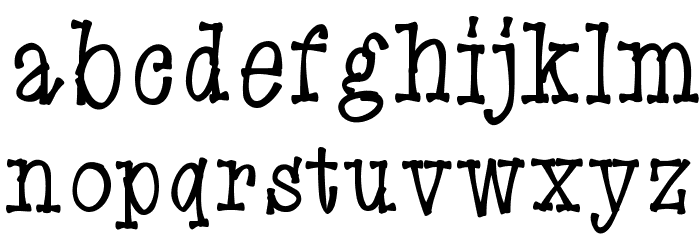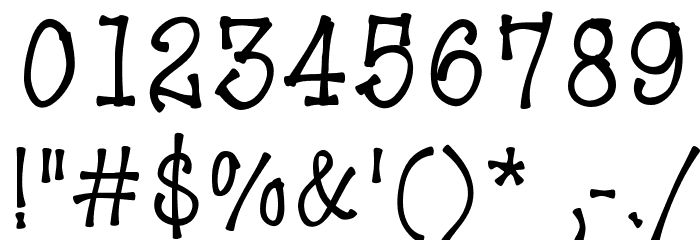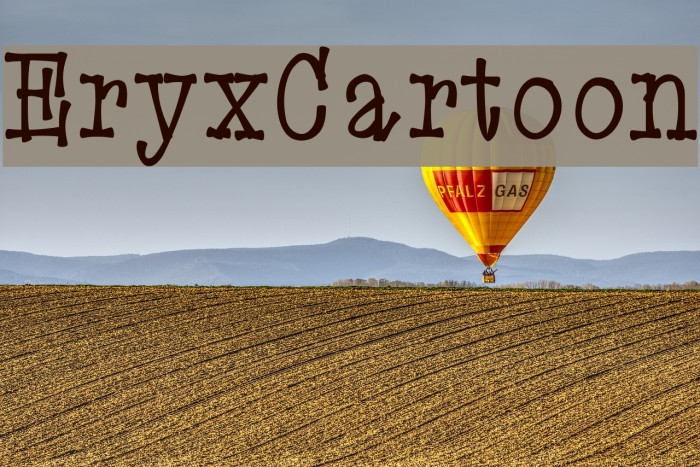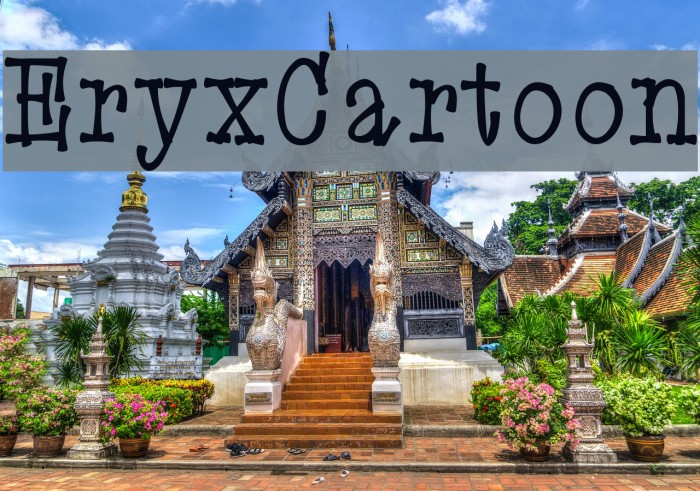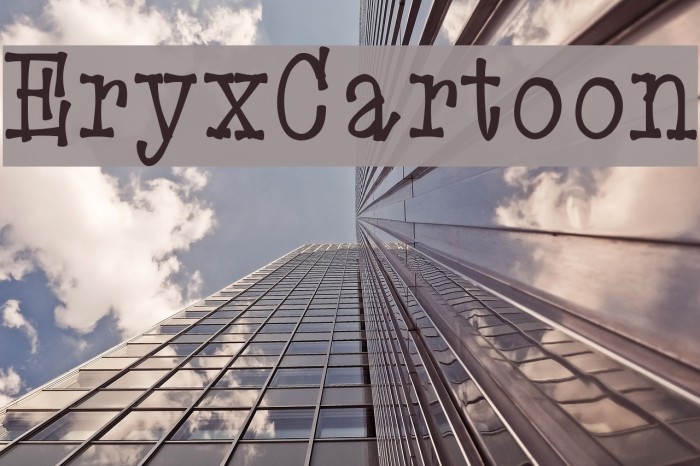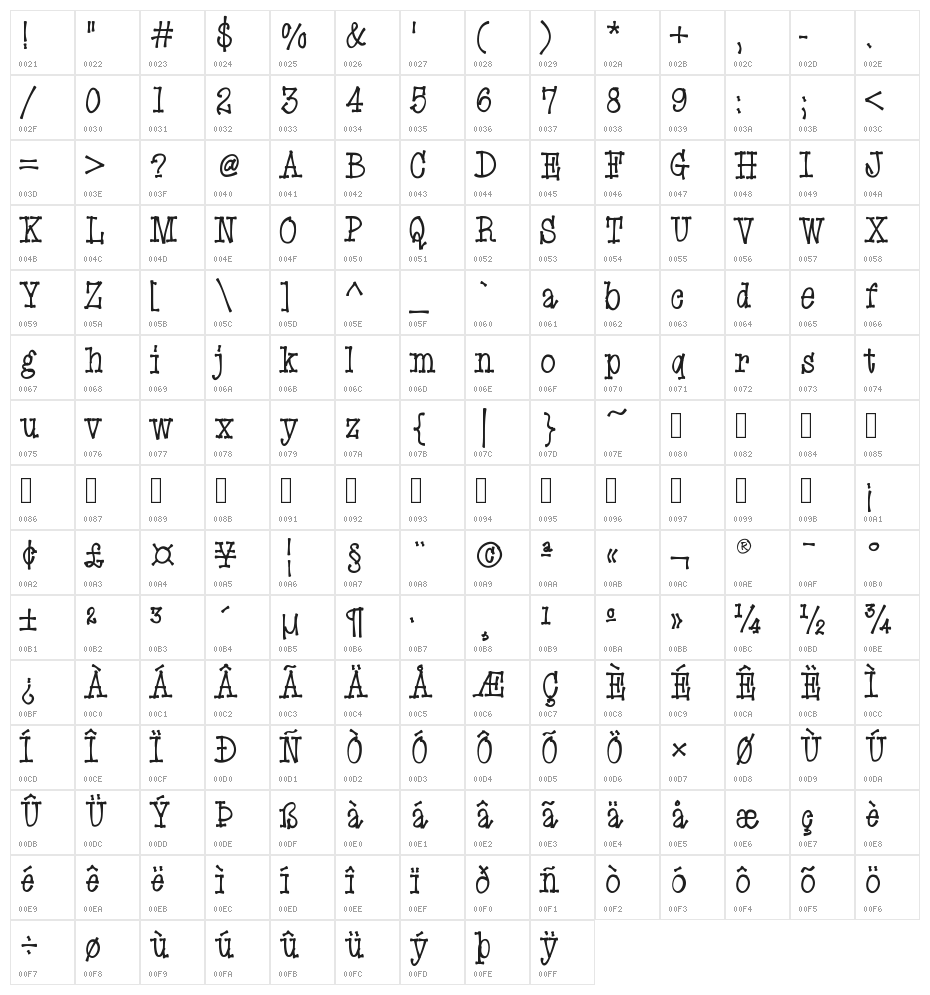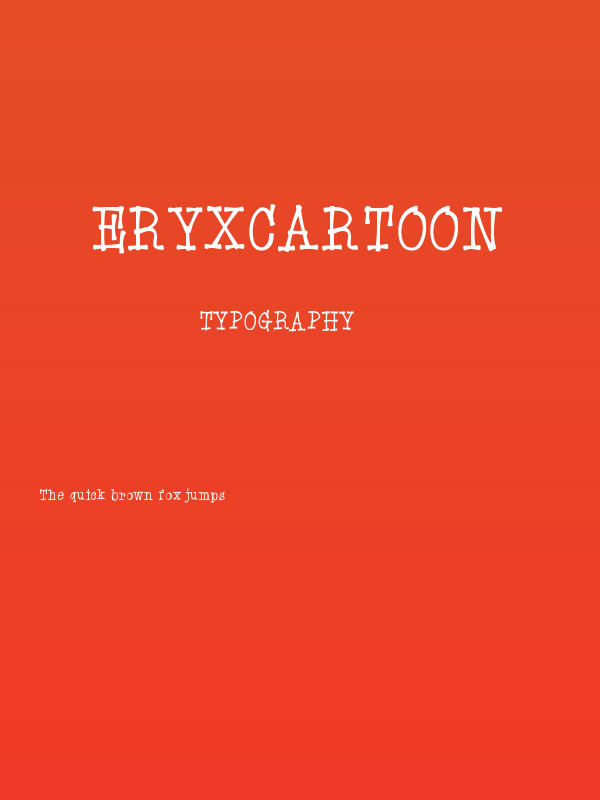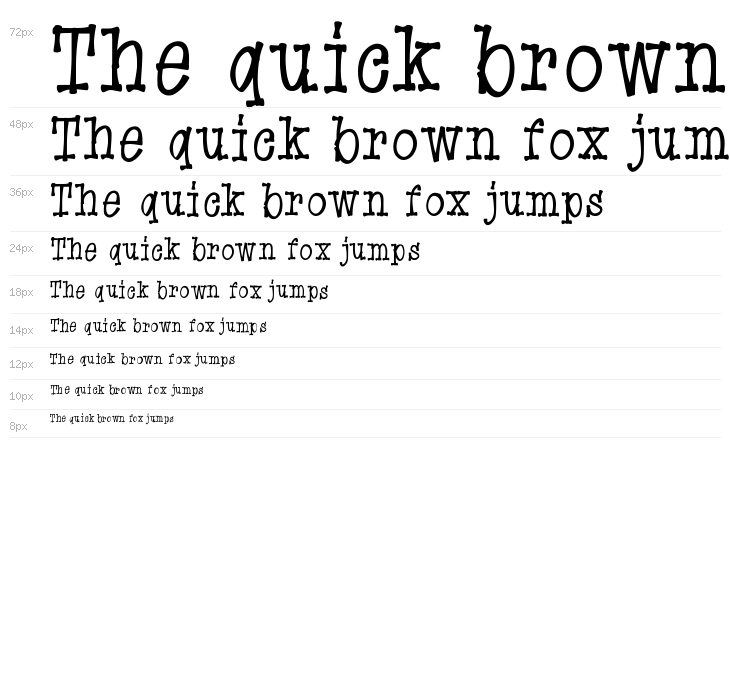
EryxCartoon Font
This playful and whimsical font features a hand-drawn aesthetic with irregular, slightly wavy lines that give it a cartoonish and informal appearance. The characters are bold and have a distinct, uneven stroke that adds to their charm. The uppercase and lowercase letters maintain a consistent style, with exaggerated serifs and a slightly distressed look that enhances its playful nature. The numbers and special characters follow the same quirky design, making the font suitable for creative and fun projects.
A playful, hand-drawn font with a cartoonish and whimsical style.
- Weight: Medium
- Proposed Projects: Ideal for children's books, comic strips, playful branding, and creative posters.
- Overall Style: Whimsical, Playful, Cartoonish